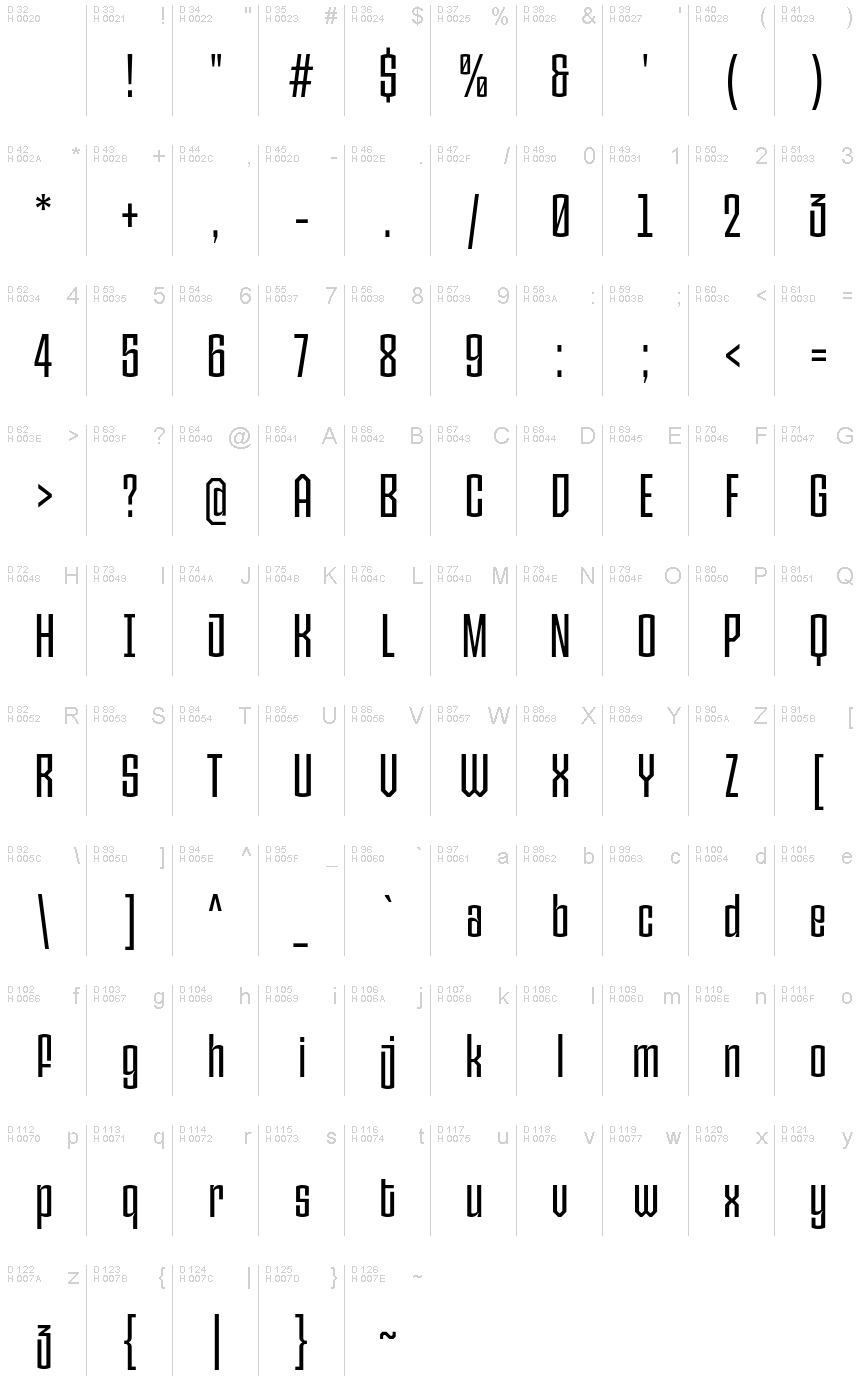
TT Carvist Trial Variable
TT Carvist Variable font, part of the TT Carvist family by TypeType Foundry, stands out with its modern sans serif style and distinct condensed width. Its sharp lines and elegant form make it a versatile choice for contemporary designs. Perfect for headlines and branding, this free font offers a clean yet dynamic aesthetic that draws attention without overwhelming the viewer.
With TT Carvist Variable, designers can create striking visuals that maintain readability across various applications. Whether used for digital media, print layouts, or corporate projects, this font's adaptability is unmatched. Download TT Carvist now to elevate your design projects with its unique blend of style and functionality. Explore the limitless possibilities this distinguished typeface brings to your creative arsenal while ensuring high impact in any design context.